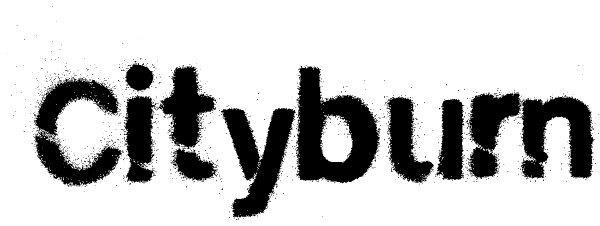
The City Burn
The City Burn, formerly called "The city burn night after night and we spray-paint the walls", was especially designed for Mad Skills Mag issue#3 Urban Flavour. It needed to be street, and urban, so I made a stencil font. It’s used by Fox5 tv for...